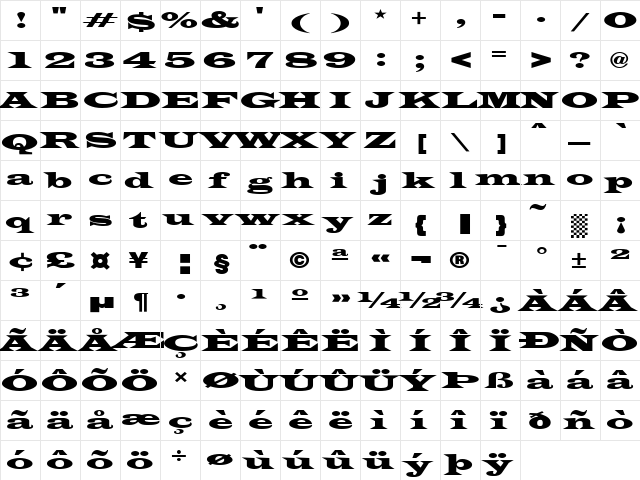
Latin-WideExt Normal
Design Context for Latin-WideExt Typeface
Latin-WideExt takes a measured approach to typography — its balanced proportions and neutral character make it a reliable workhorse for both digital and print work.